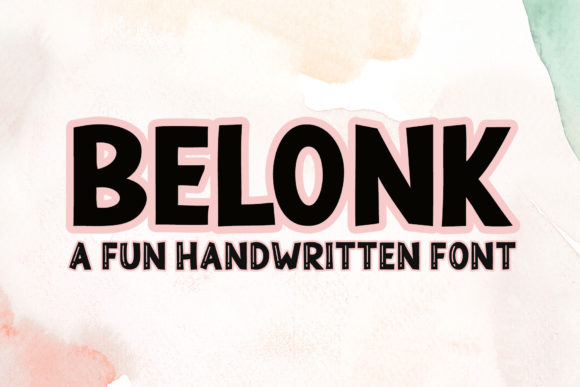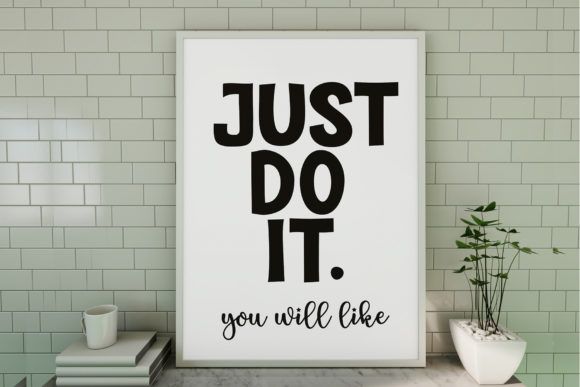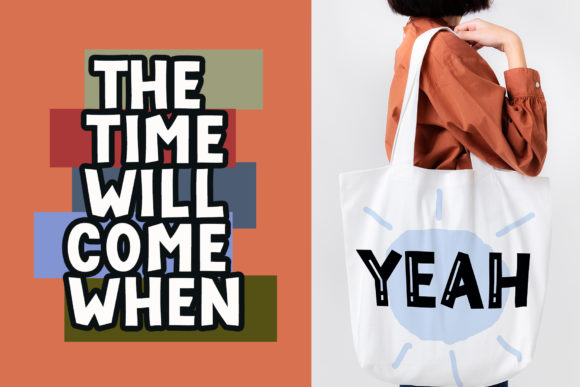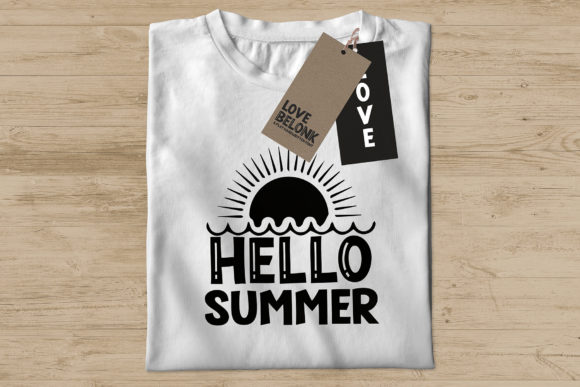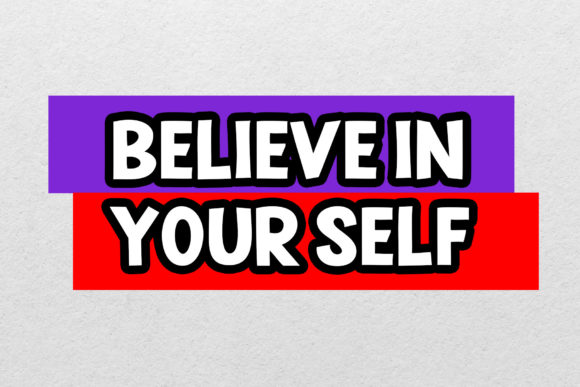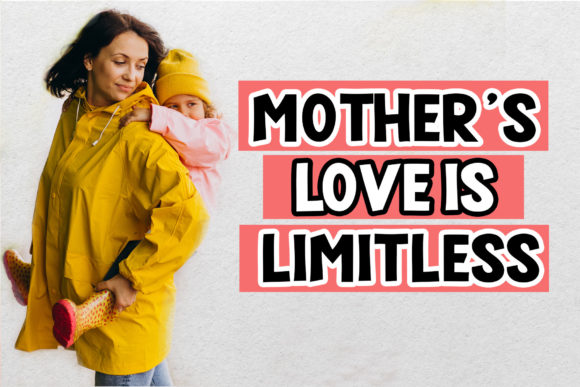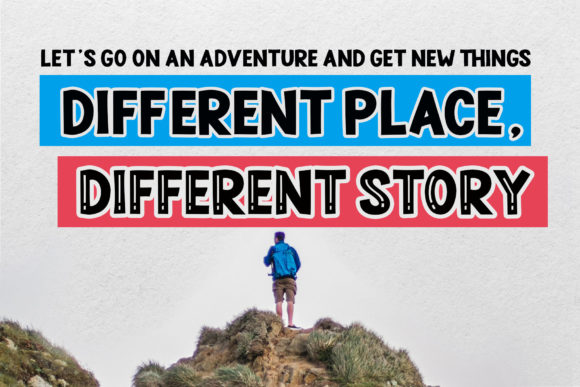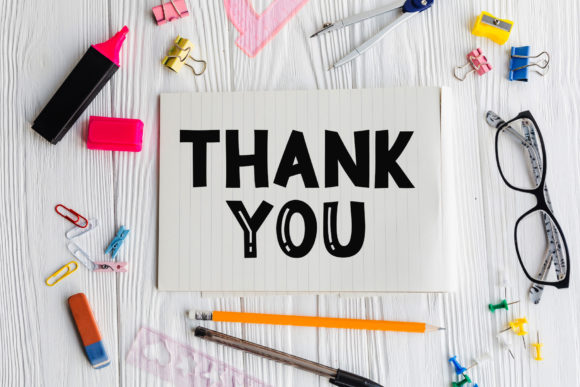
Belonk Font
Belonk is a bold, bubbly and fun display font. Its authentic look and feel will add a great touch to your designs. It embodies playfulness and authenticity and is the perfect choice for any children activity or school project.